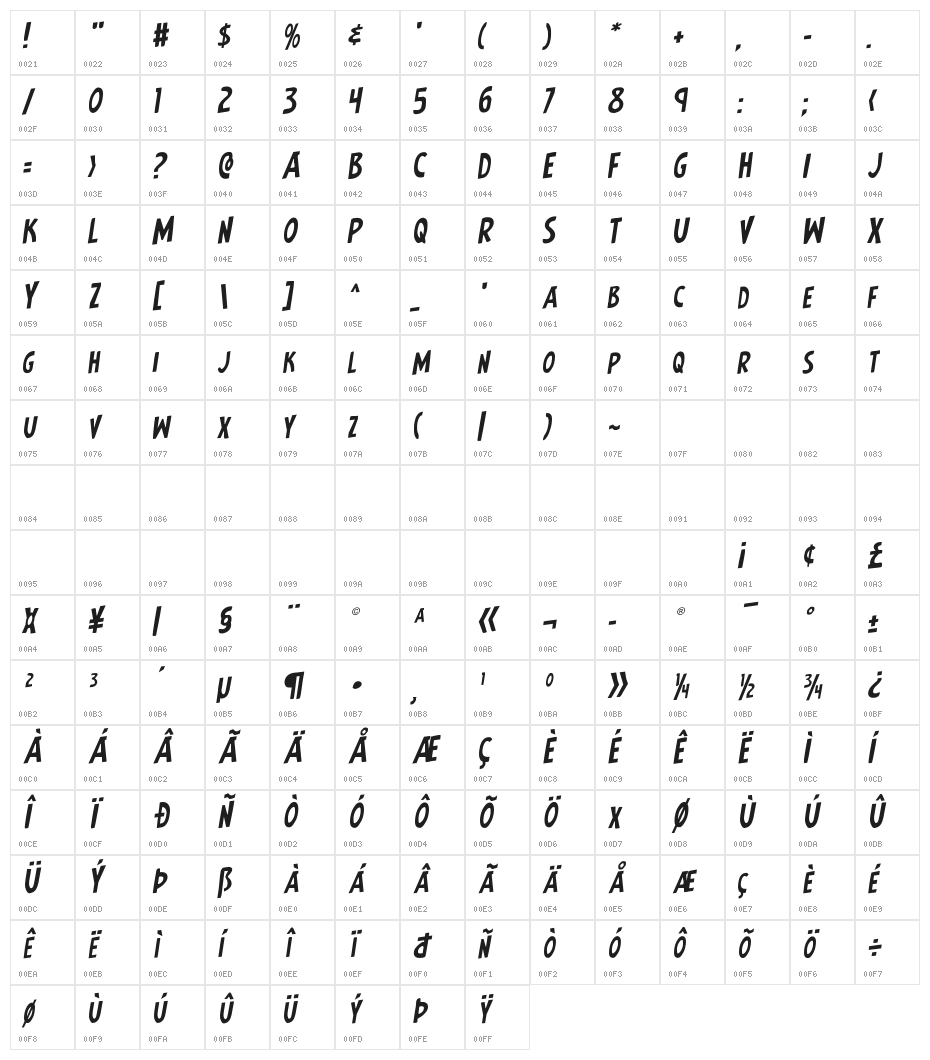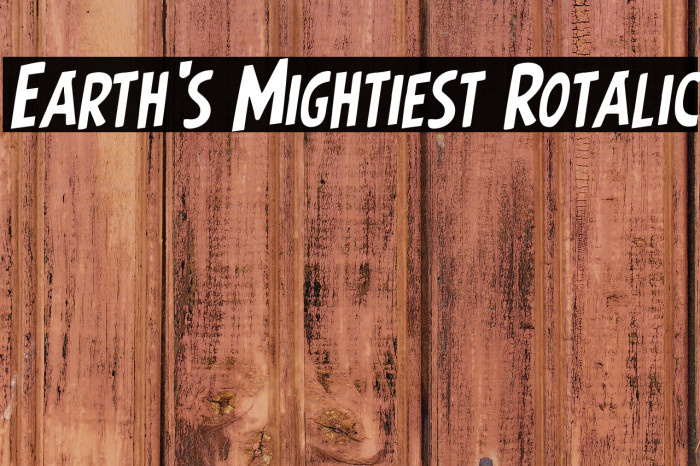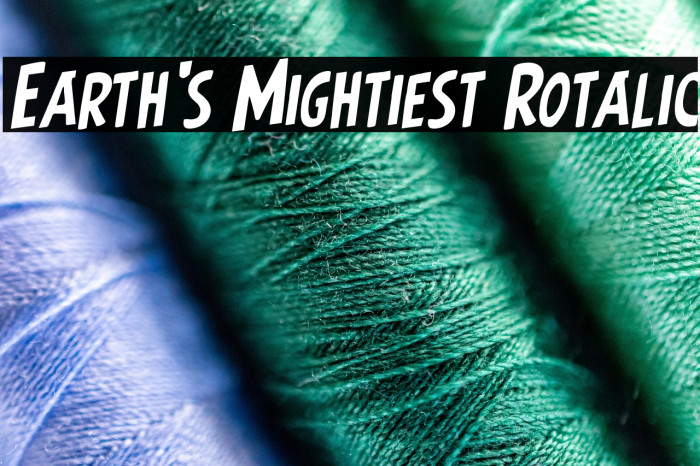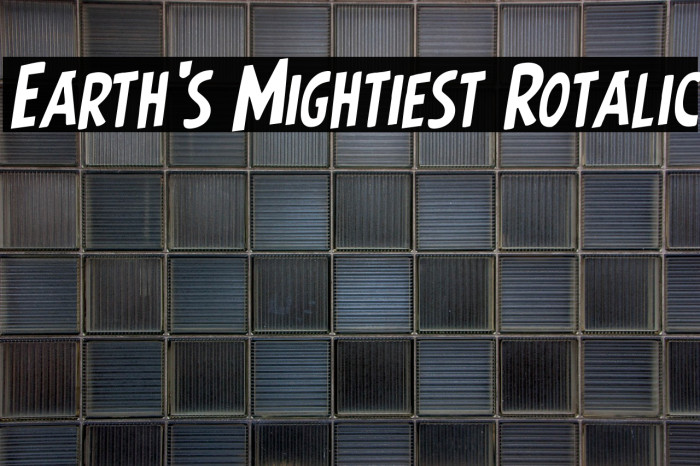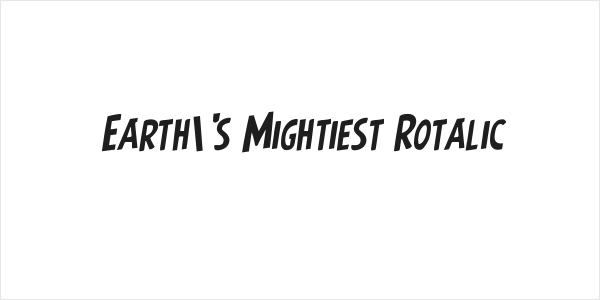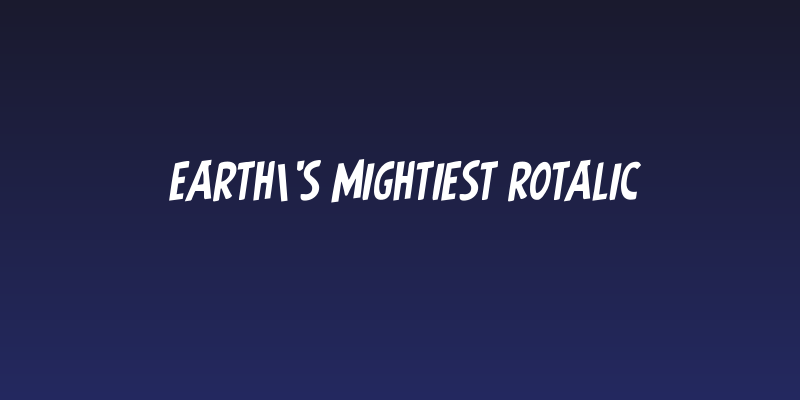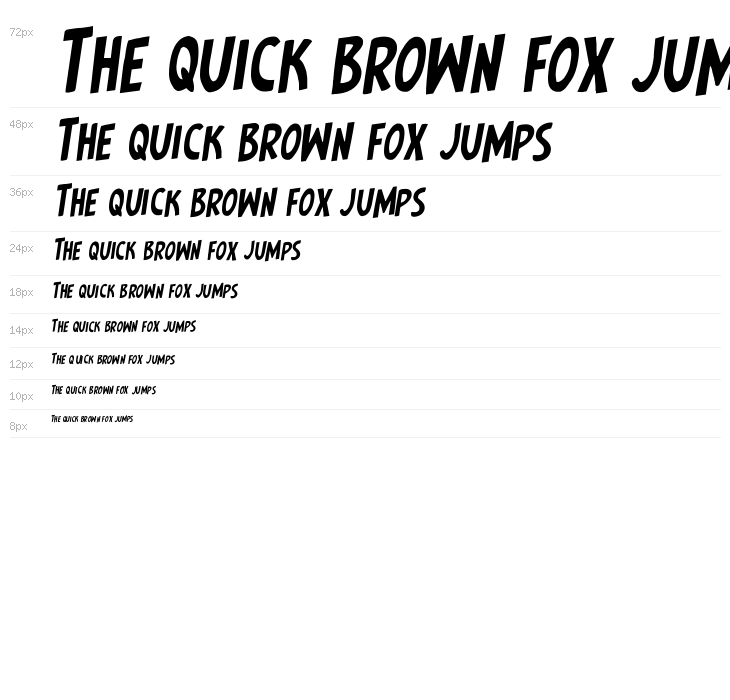
Earth's Mightiest Rotalic Font
Earth's Mightiest Rotalic Description
This font features a bold and dynamic style with a noticeable slant, giving it a sense of motion and energy. The characters are thick and robust, with a slightly condensed appearance that enhances its boldness. The uppercase and lowercase letters maintain a consistent style, with rounded edges and a uniform stroke width that adds to its readability. The numbers and special characters follow the same design principles, ensuring a cohesive look across all elements. This font's energetic and modern aesthetic makes it suitable for projects that require a strong visual impact.
Proposed ProjectsIdeal for posters, headlines, branding, and advertising materials that need a strong, impactful presence.